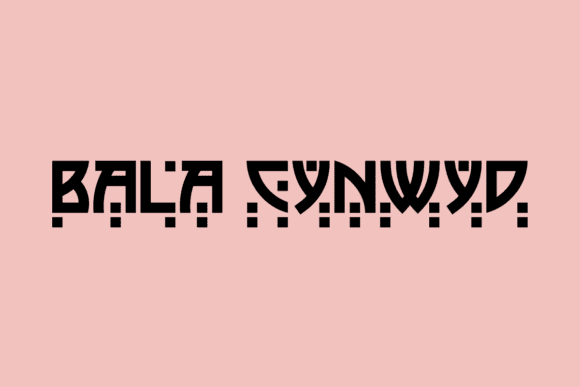
Bala Cynwyd Font for Crafting, Logos and Print Projects
Bala Cynwyd Font is a polished digital typeface optimized for crafting, visual branding, and custom print workflows. It offers balanced letter spacing, sharp clarity, and smooth lines that make it ideal for vinyl cutting, logo creation, and merchandise printing. Its versatility allows designers to adapt it for various applications, ensuring that each project stands out with a professional touch. Additionally, the bankai font for logo design complements the sleek aesthetic of Bala Cynwyd Font, making it a popular choice among creative professionals looking to elevate their branding efforts. Together, these typefaces provide a powerful toolkit for anyone looking to leave a memorable impression in a crowded marketplace.
This font reinforces the font entity and serves creators who demand performance across both physical and digital mediums. Whether you're working with heat transfer vinyl, business branding, or printable stationery, Bala Cynwyd delivers production-ready precision with style. Its versatility makes it an ideal choice for any creative endeavor, allowing for seamless integration into varied applications. The barloesius font for design projects elevates your work, bringing a contemporary edge to traditional designs. Whether you’re crafting unique invitations or developing marketing materials, this font offers both flair and functionality to enhance your overall aesthetic. Its versatility makes it an ideal choice for a variety of applications, helping to bring your creative visions to life. Additionally, the balloon font for crafting projects adds an extra touch of whimsy, making it perfect for party decorations or playful invitations. With its striking aesthetic and reliable performance, this font elevates any design while ensuring that your projects stand out. For those looking to create memorable branding, the basgerd font for logo design provides a unique flair that captures attention. Its bold and engaging style not only enhances visibility but also fosters a connection with your audience. Combining both Bala Cynwyd and basgerd fonts can lead to innovative projects that leave a lasting impression.
- Elegant yet bold for standout results
- Craft-ready with clean curves and smooth edges
- Fits both personal and professional design goals
- Ideal for multi-surface and multi-format use